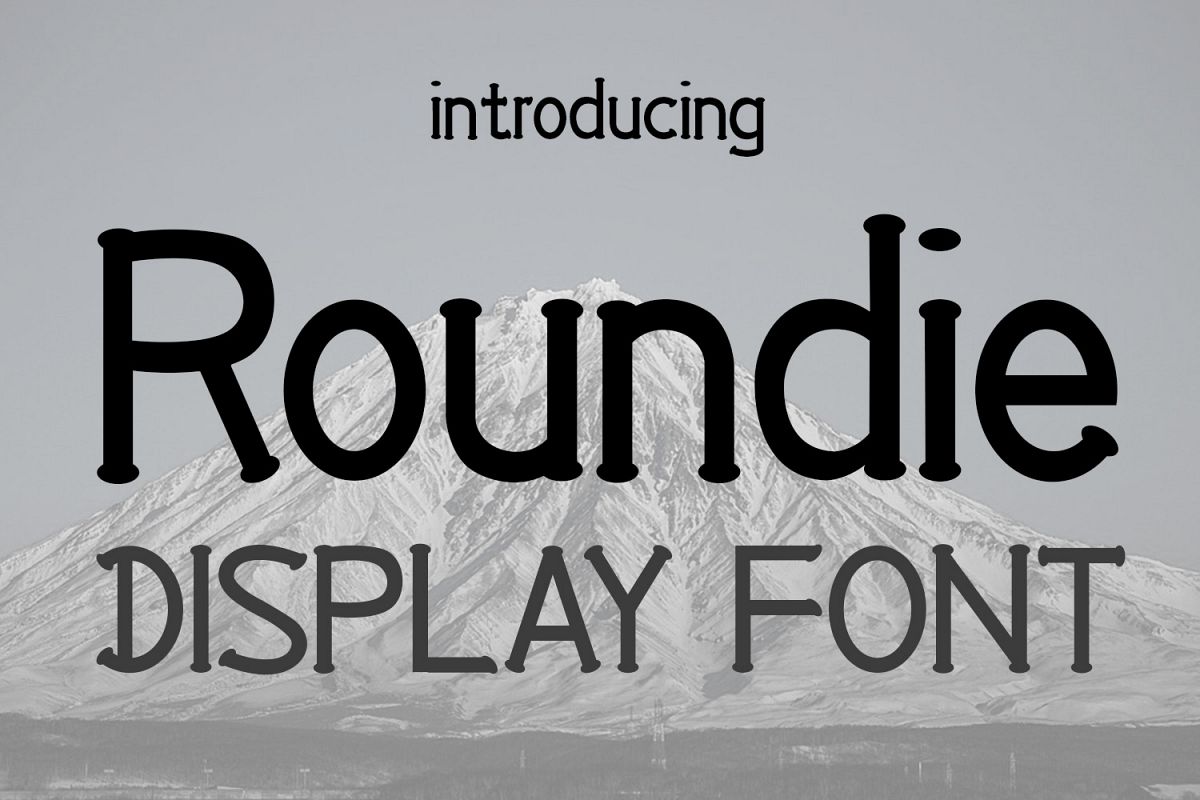
EP Roundie- Display Font
EPRoundie
This font is perfect for wedding cards, quotes, headings, blogs, logos, invitations and more! Font includes all caps, punctuation, and numbers.
- 221 glyps (alphabets, numbers, signs, symbols, accents, euros)
- 600+ kerning pairs
- Support for European Languages (15+ languages)